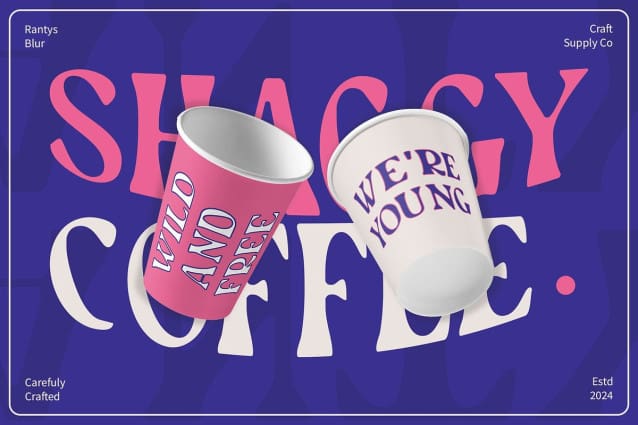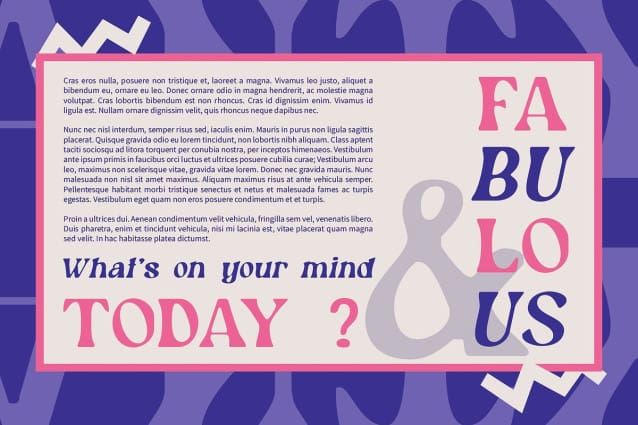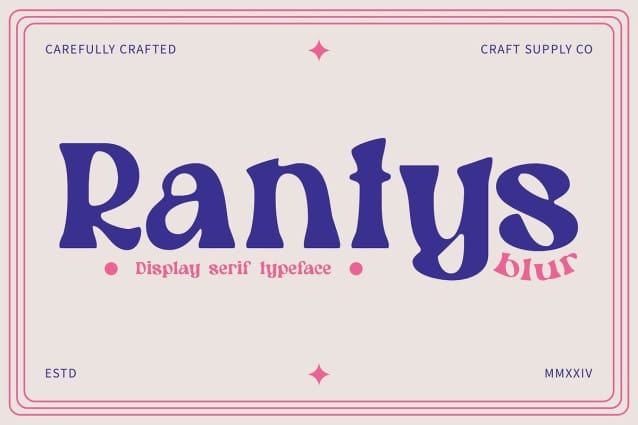
Rantys Blur Font
Rantys Blur Font is a display serif font that combines retro and cute shapes with a blur effect, offering a unique and appealing appearance. The blur effect adds dimension and visual interest to this font, making it suitable for designs that aim to convey a classic yet fun and attention-grabbing impression.
Retro and Cute Shapes The retro and cute shapes of Rantys Blur give it a distinctive and charming look. These shapes add a playful and nostalgic touch to the font, making it ideal for designs that want to evoke a sense of fun and whimsy.
Blur Effect for Added Dimension The blur effect in Rantys Blur adds an additional dimension to the font, creating a visually appealing and dynamic appearance. This effect adds depth and movement to the letters, making them stand out on the page.
Ideal for Classic and Fun Designs This blur font is perfect for designs that require a classic yet fun and attention-grabbing appearance. Whether you’re designing posters, packaging, or branding materials, this font can help you create designs that are both timeless and playful.
Enhance Your Designs with Rantys Blur With its retro shapes and blur effect, Rantys Blur can add a touch of charm and whimsy to any design. Whether you’re aiming for a vintage look or something more modern and playful, this font can help you achieve your design goals.